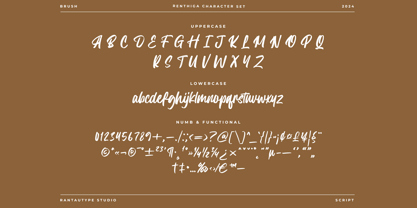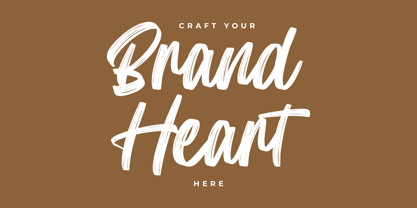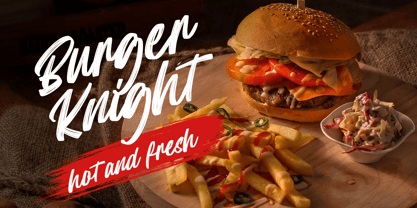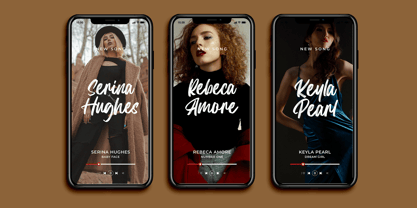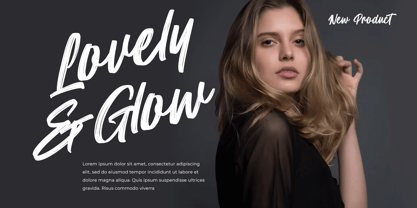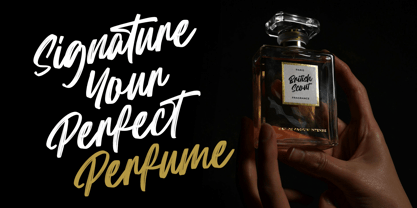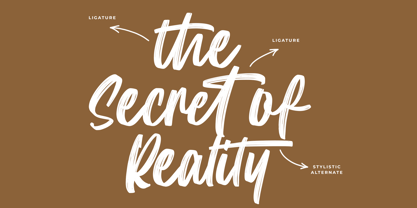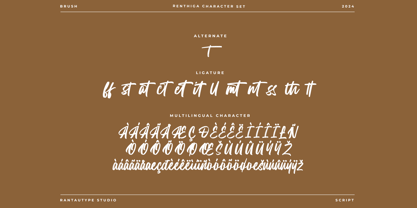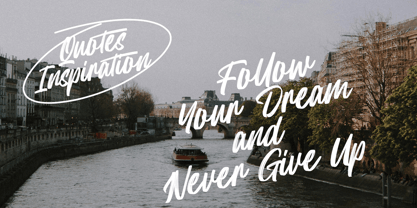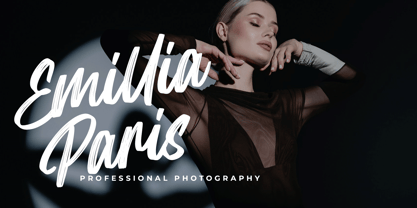
Renthiga
The Renthiga Font Family was designed by Yudi Pratama Chandra and published by RantauType. Renthiga contains 1 styles.
Renthiga is brush handwritten font with style and trend look. Renthiga come with authentic texture in each character to make your design project awesome. Renthiga is a perfectly choice for any creative endeavor, creating elegant, modern, chic, lifestyle design such as logotype, title, cover, branding, invitations, wedding designs, display and magazine, social media posts, advertisements, printed quotes, product packaging, corporate brand, product designs, labels, photography, watermarks, special events and any other project with handwritten touch.
• Standart Glyphs
• Numberial and Functional
• Ligature and alternate